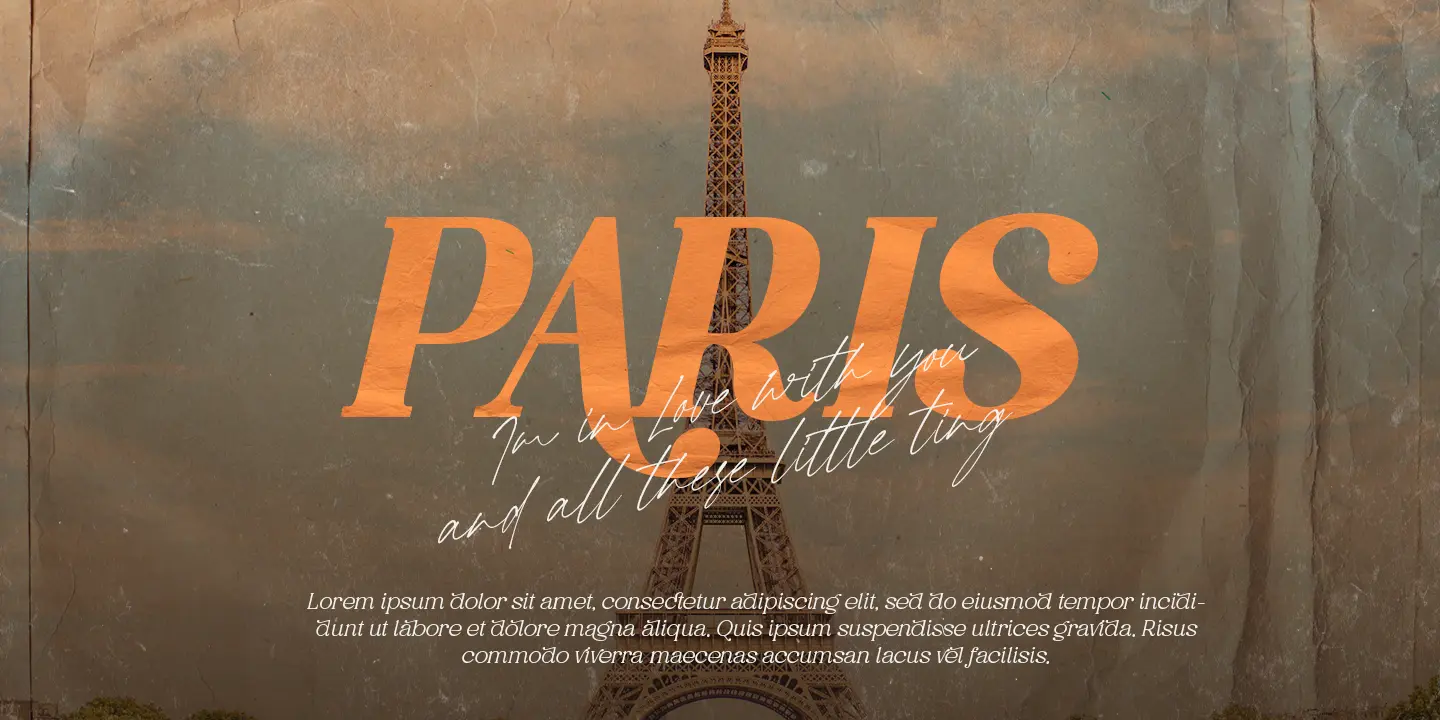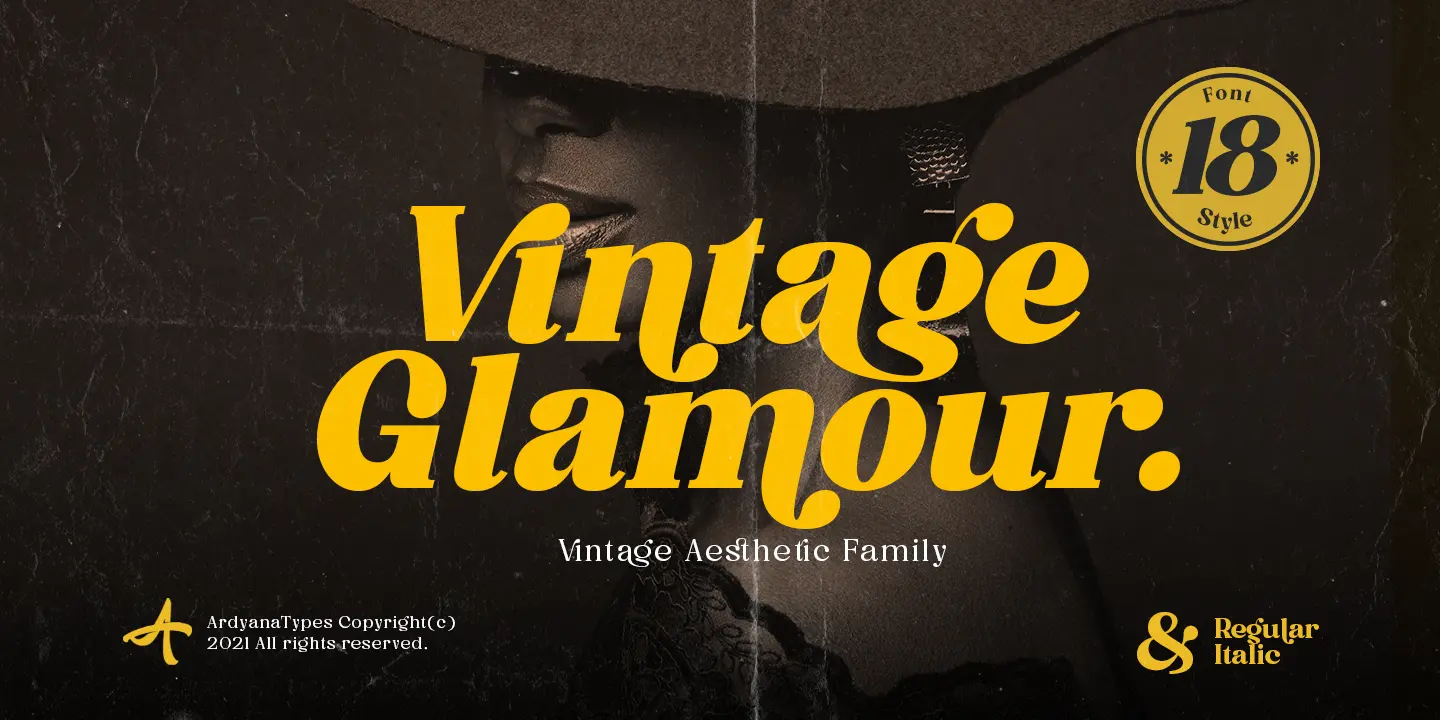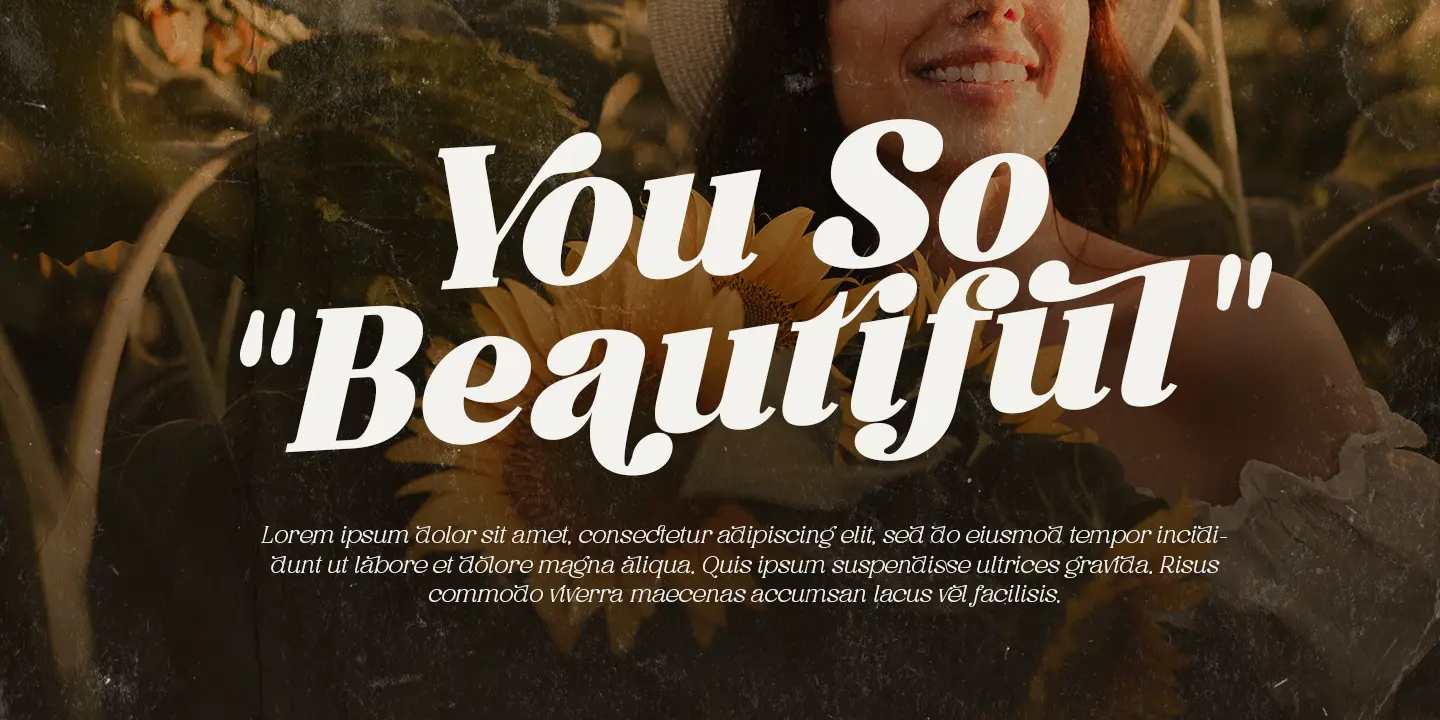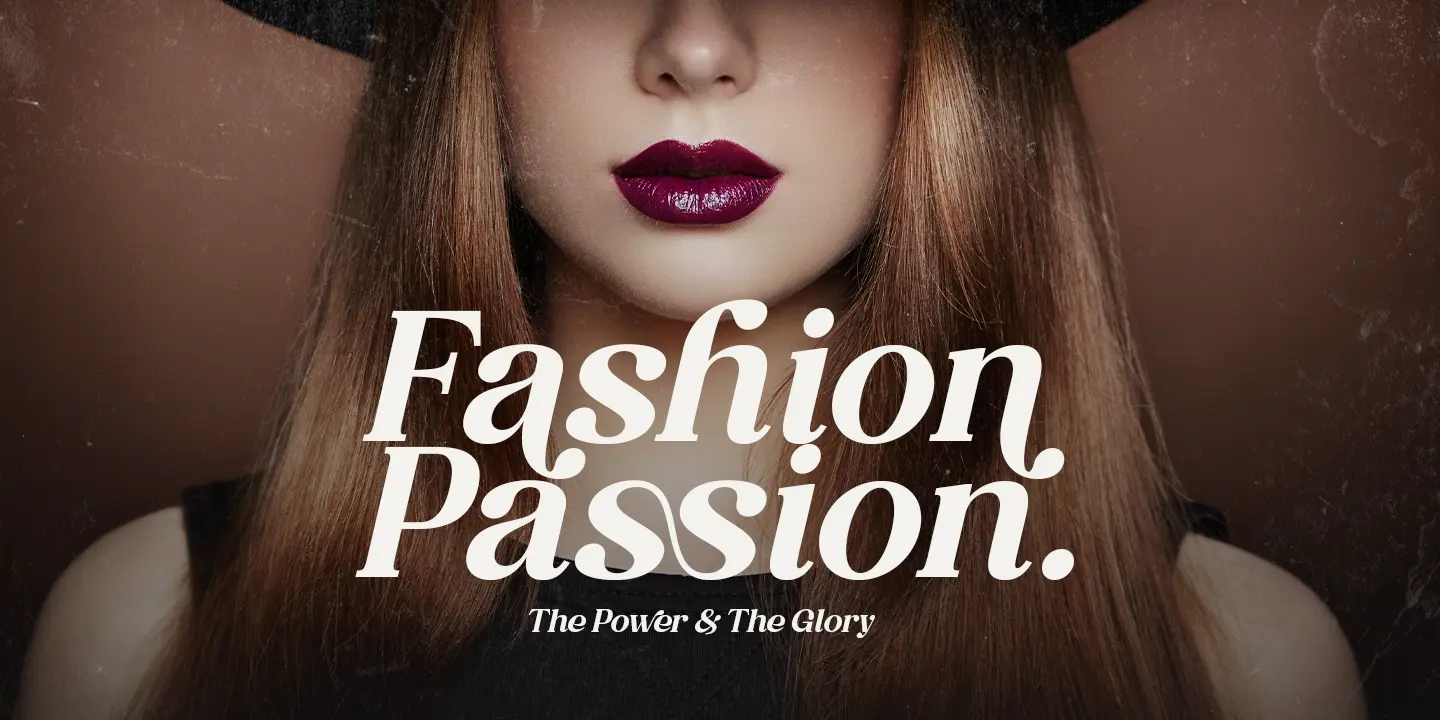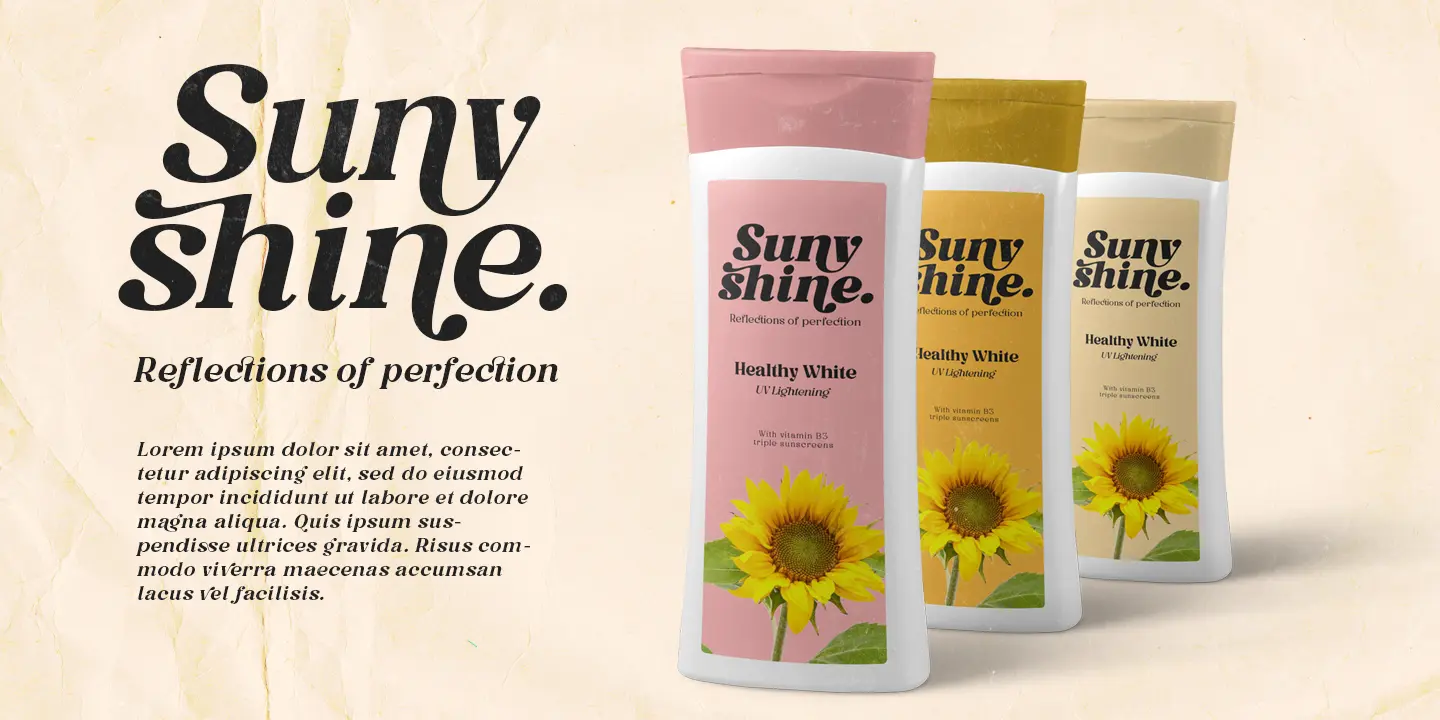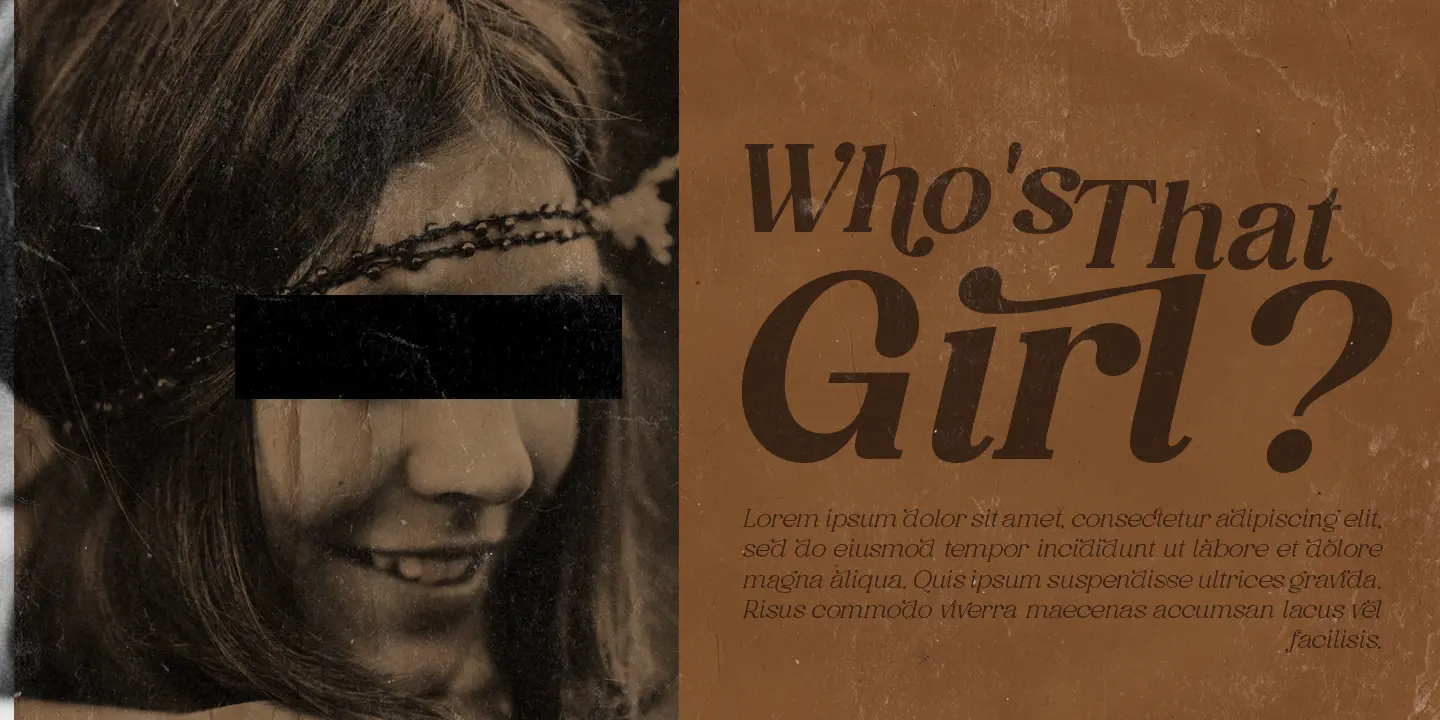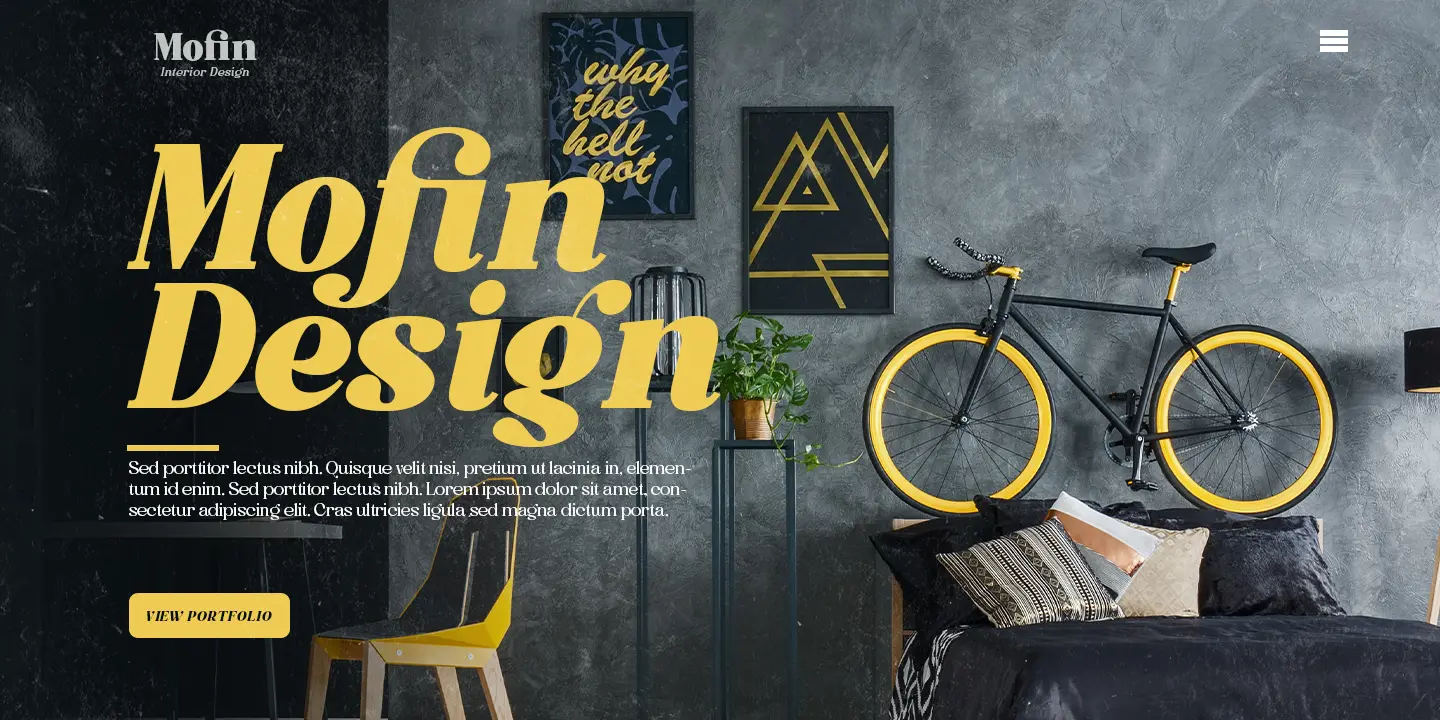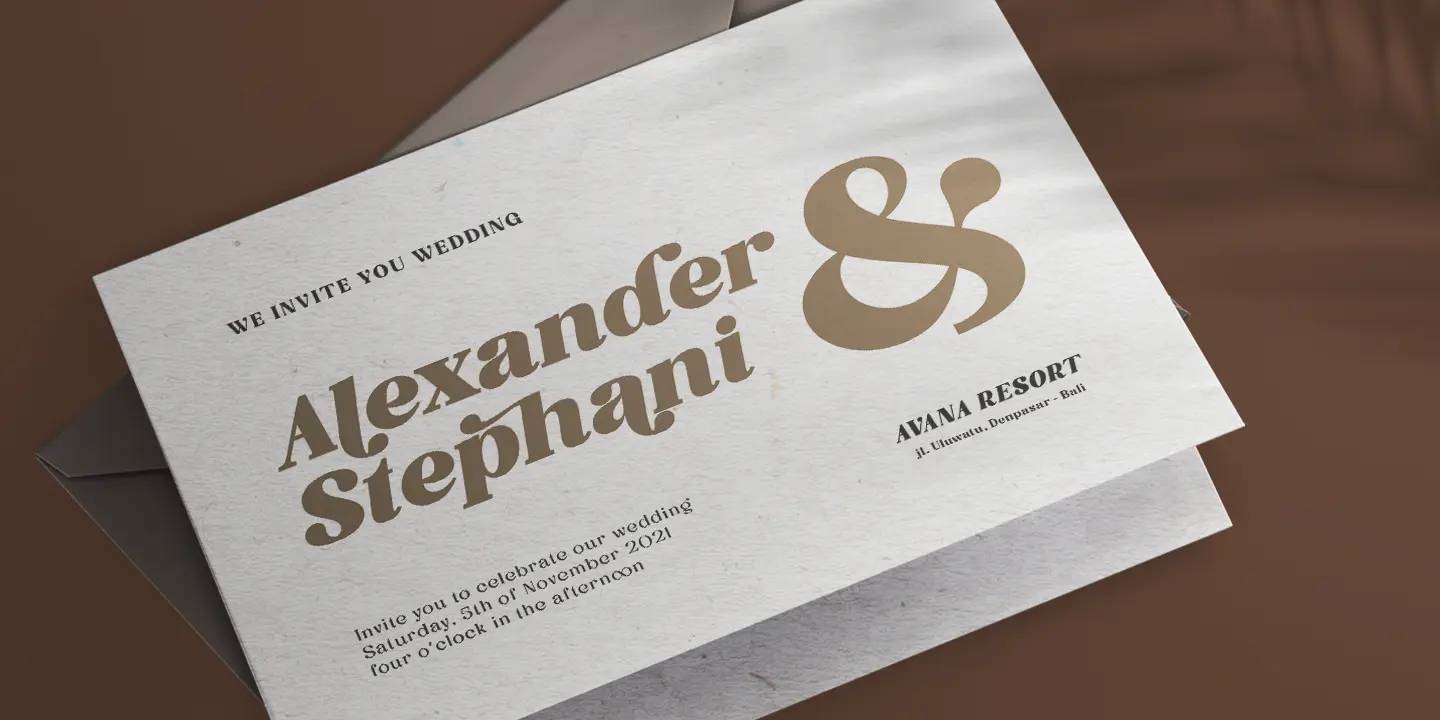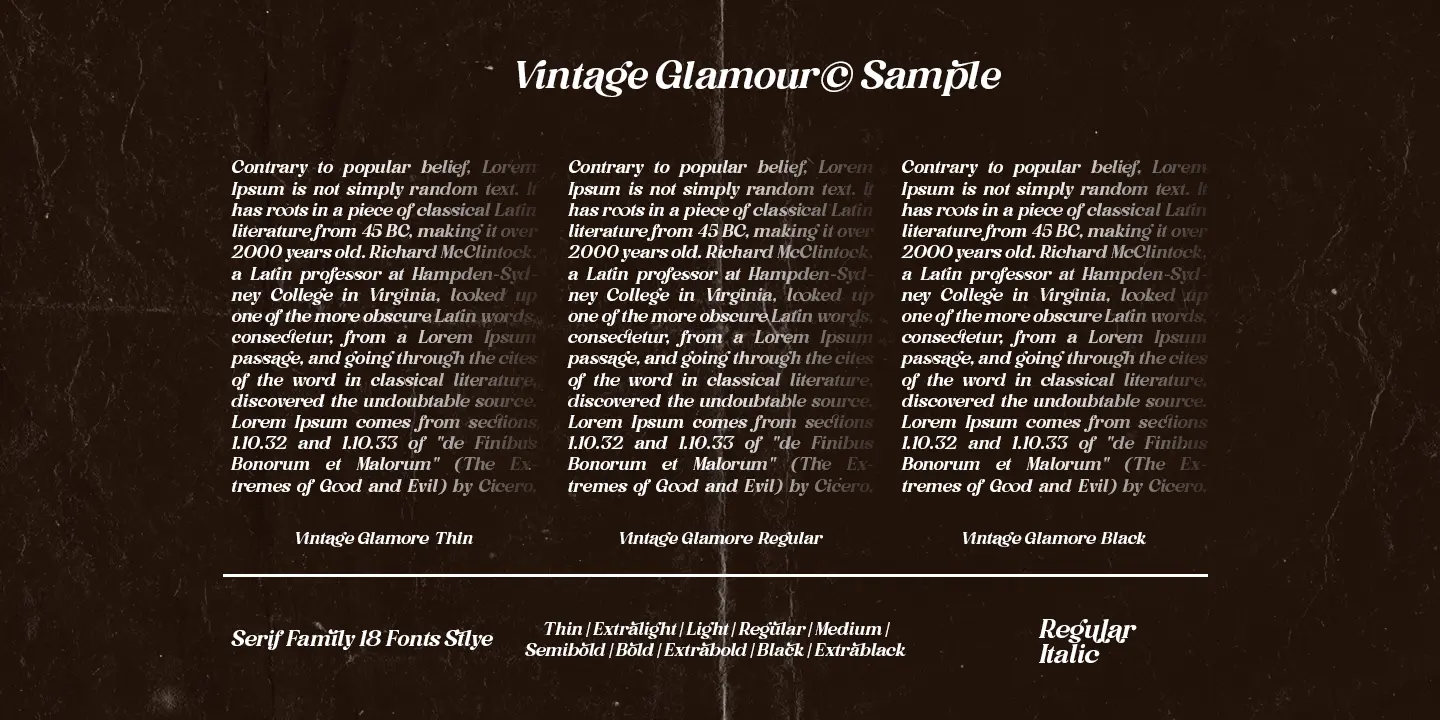
Vintage Glamour
Vintage Glamour comes with an aesthetic style, and its serif-type tagline is Vintage and elegant. This font comes in eighteen thickness levels, from thin to black, to suit your needs. Vintage Glamour is also equipped with the latest professional characteristics that can present an elegant and attractive identity for your company or project for business purposes. It goes well with modern serifs and scripts that depict or stand firm as titles and brand representatives for an elegant look. Vintage Glamour has 18 font styles ranging from thin to regular and italic. This will go a long way in creating the perfect impression, giving you many options you’ll want to use in each design. Vintage Glamour also comes with multiple languages, making any country and language easy to use. It also comes with alternative Ligatures and styles to make your designs more attractive. Vintage Glamour is suitable for branding projects and various design purposes such as business cards, name tags, and uniforms as a brand enhancement. Advertisements, posters, invitations, branding, logos, magazines, merchandise, presentations, etc.
• Vi Vi
• ag ag
• ga ga
• gi gi
• ny ny
• oo oo
• ss ss
• ti ti
• irl irl